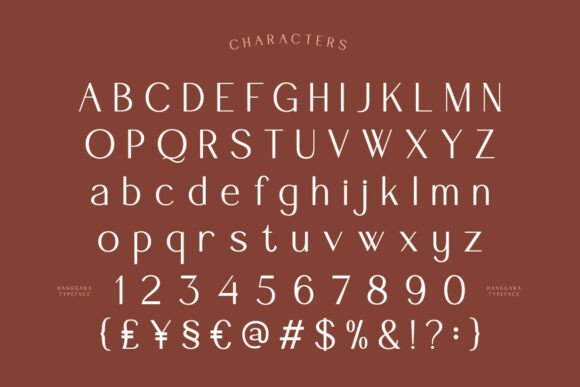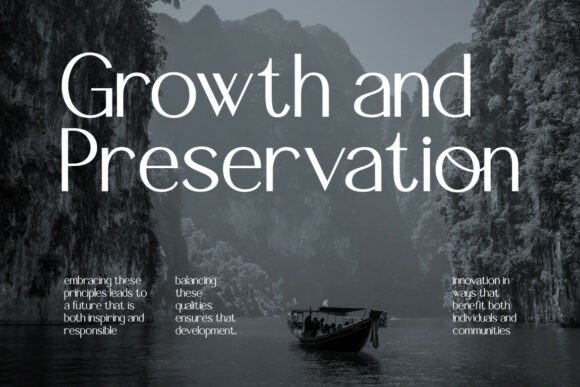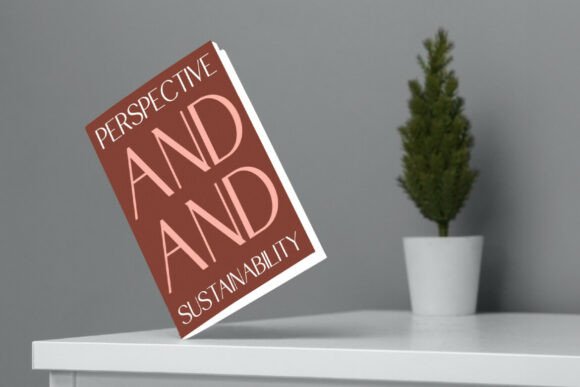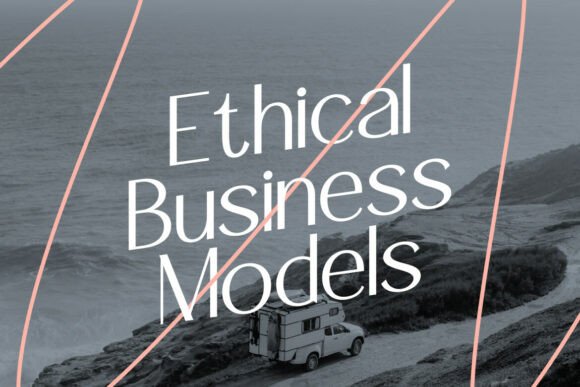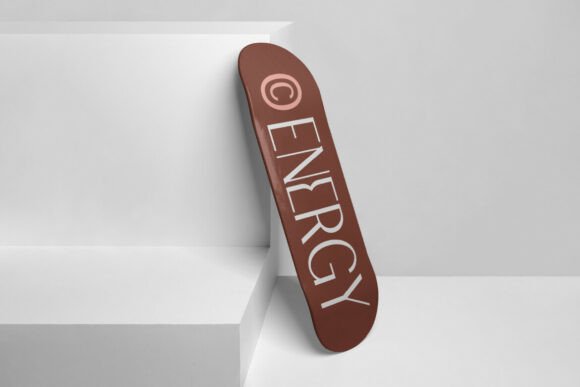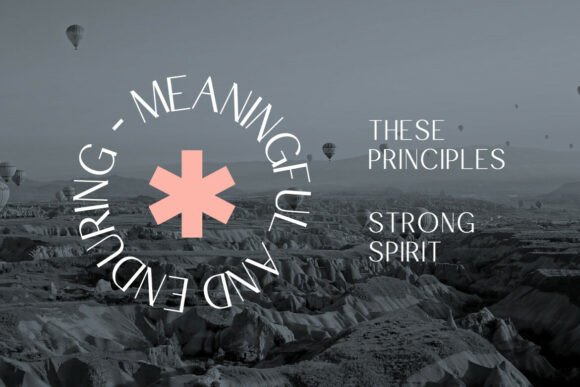
Introduction to Hanggara Font
Have you ever found yourself staring at a blank page, trying to bring a creative project to life, only to be held back by the perfect font? For designers, the right typography can be the difference between a great idea and a truly stunning visual experience. And that’s where the Hanggara Font comes in – a modern luxury serif typeface that’s designed to elevate your work and leave a lasting impression.
With its elegant proportions, smooth curves, and distinctive ligature details, the Hanggara Font is the perfect design resource for anyone looking to add a touch of sophistication to their creative project. Whether you’re working on a high-quality magazine spread, a website, or a social media campaign, this font is sure to deliver the clarity and elegance you need to make your vision shine.
Key Features of Hanggara Font
- High-quality design resource suitable for creative projects, offering a unique and stylish look.
- Designed to be used with a transparent background, allowing for seamless integration with images and other design elements.
- Features a high-resolution design, making it ideal for use in large-scale creative projects, such as posters and billboards.
- Perfect for designers and artists looking for a unique and high-quality font to add a touch of sophistication to their creative project.
Honest Review: Hanggara Font
I recently had the chance to work with the Hanggara Font, and I must say it’s been a game-changer for my creative projects. The high quality of this font is undeniable, and it’s been a design resource I’ve been relying on.
What works well: ✨ The Hanggara Font has a unique, modern aesthetic that’s perfect for adding a touch of sophistication to any design. I’ve used it for a range of projects, from logos to infographics, and it’s always delivered. The font is also super versatile, with a range of weights and styles to choose from. Plus, it’s available for free download, which is always a bonus!
- Perfect for creative projects, from logos to infographics
- Range of weights and styles to choose from
Limitations: ⚠️ While the Hanggara Font is generally reliable, I have found that it can be a bit tricky to use with certain design software. Also, the font may not be suitable for all types of projects – it’s best suited for modern, sleek designs.
Overall impression: I’m thoroughly impressed with the Hanggara Font. It’s a fantastic design resource that’s perfect for anyone looking to add a touch of sophistication to their creative projects. Whether you’re working on a logo, infographic, or website, the Hanggara Font is definitely worth checking out.
Common Use Cases for Hanggara Font
Hanggara Font is particularly useful for:
- Brand identity
- Print materials
- Digital graphics